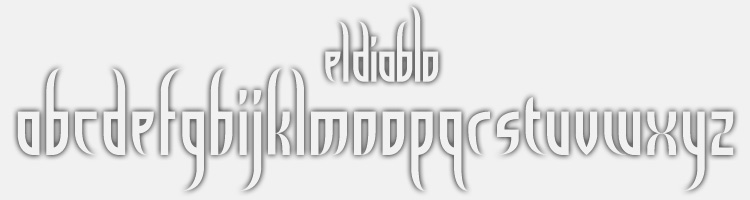
Font name: | El Diablo |
Author: | defaulterror |
Note by defaulterror | |
This font after created while designing the el Diablo Design logo. http://www.eldiablodesign.com |